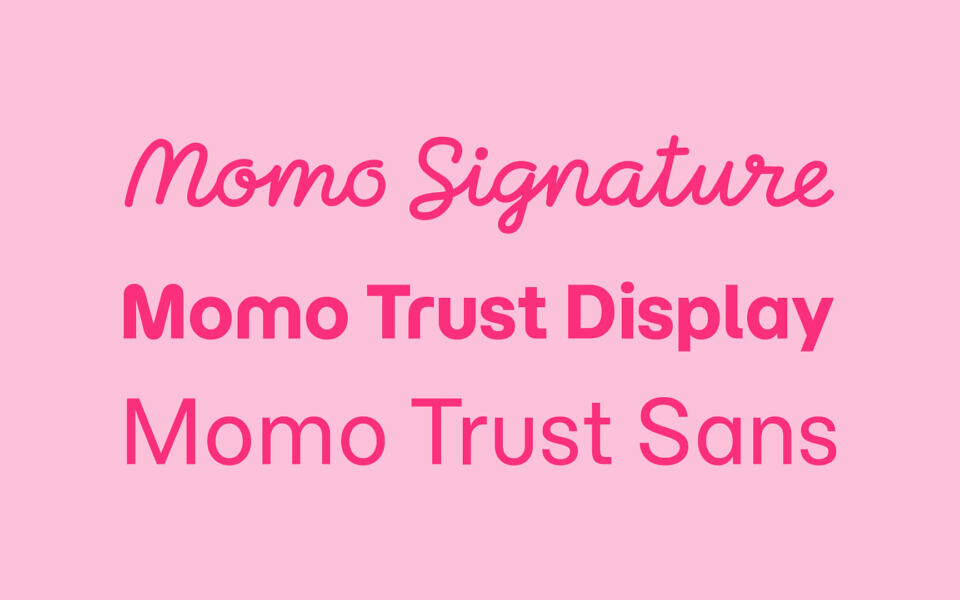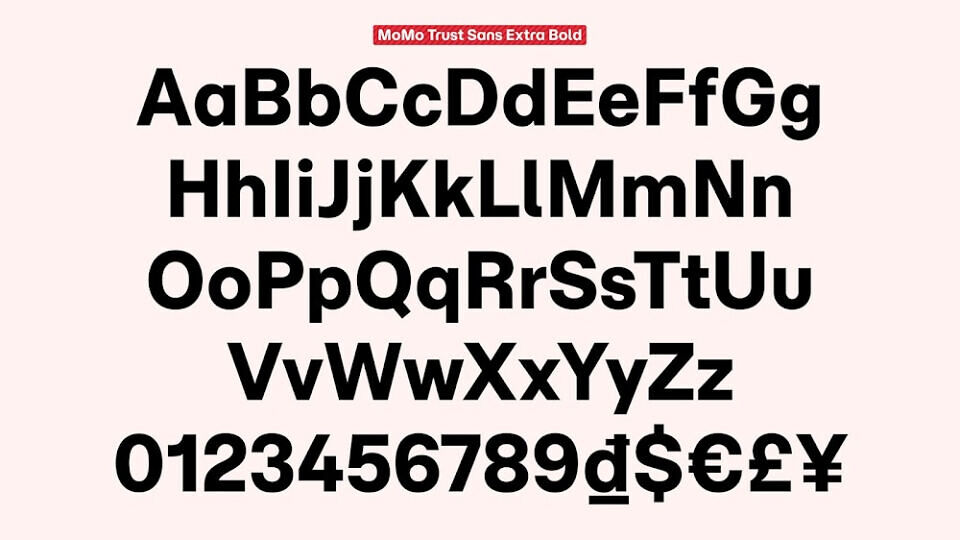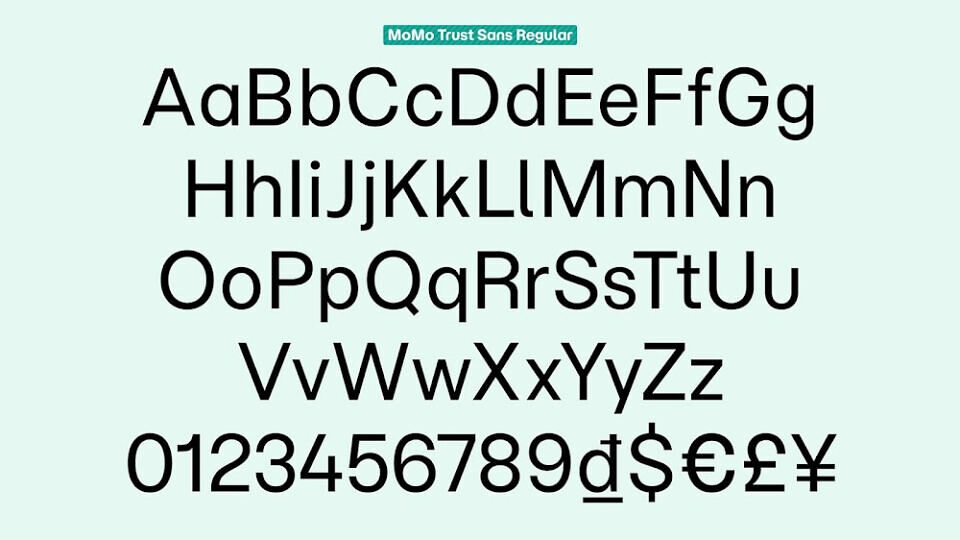
Momo is a font family designed by TYPE Associates under the OFL license, which includes three different styles, making it excellent for numerous personal and commercial projects.
- Momo Signature: Inspired by handwritten signatures, adds a personal touch that reinforces trust and individuality.
- Momo Trust Display & Momo Trust Sans: both draws inspiration from the MoMo logotype, incorporating subtle cues from the rounded, approachable forms that define the brand’s core